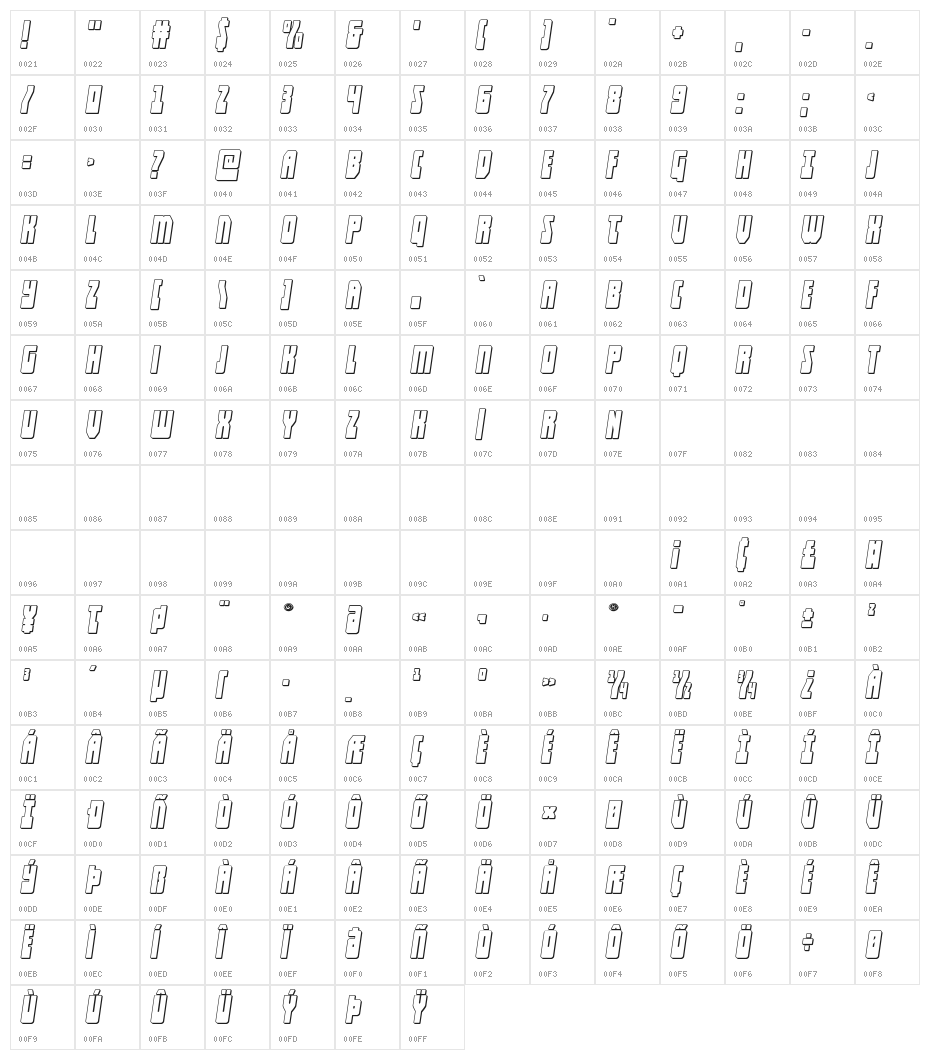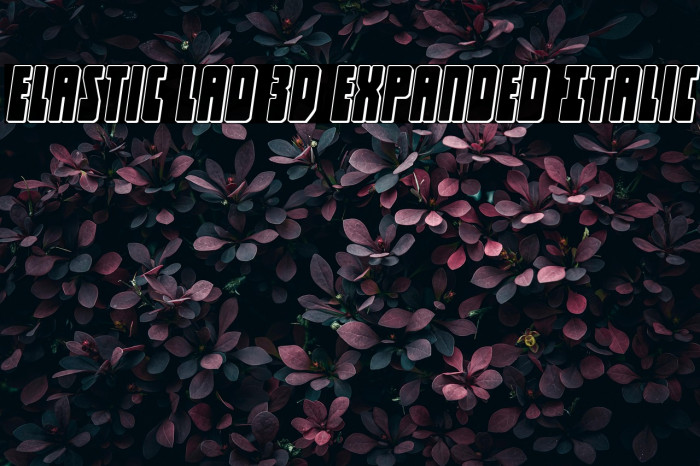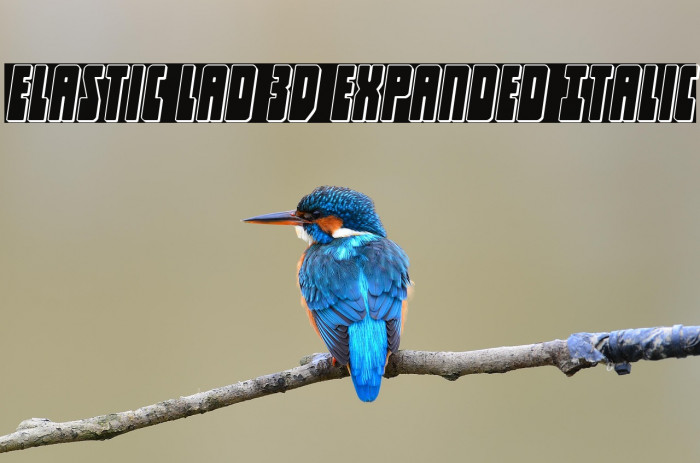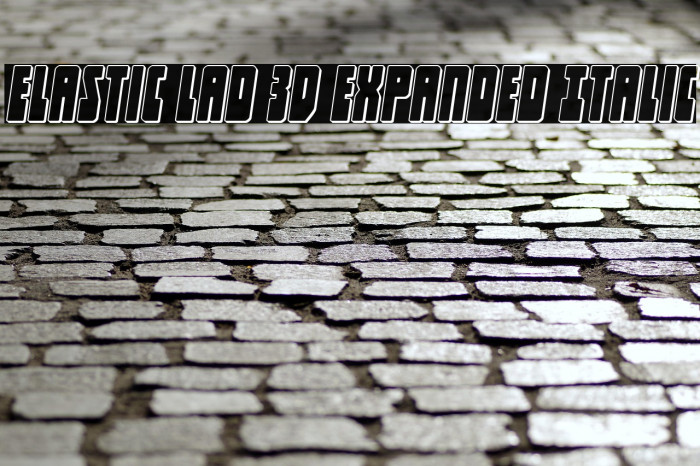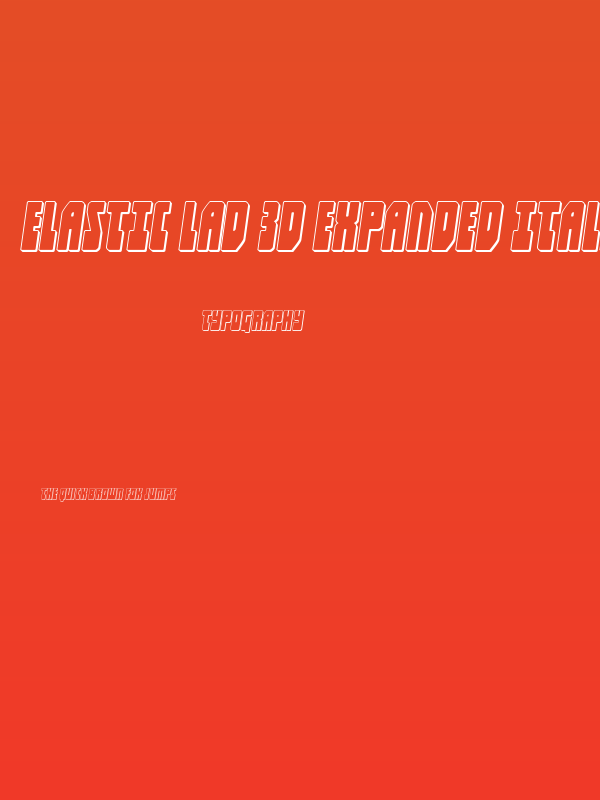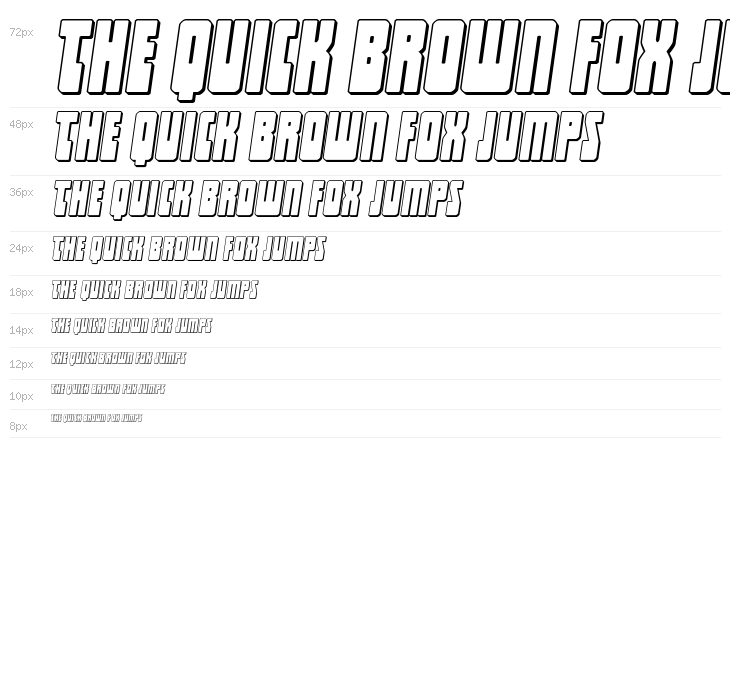
Elastic Lad 3D Expanded Italic Font
Elastic Lad 3D Expanded Italic Description
This font features a bold, three-dimensional appearance with an expanded and italicized style. The characters are outlined, giving them a distinct shadow effect that enhances their 3D look. The uppercase and lowercase letters maintain a consistent width, contributing to a uniform and cohesive design. The numbers and special characters follow the same stylistic approach, ensuring a comprehensive and versatile font. The overall design is modern and eye-catching, suitable for projects that require a strong visual impact.
| Proposed Projects | Ideal for posters, logos, video game graphics, and any project needing a dynamic and bold typeface. |